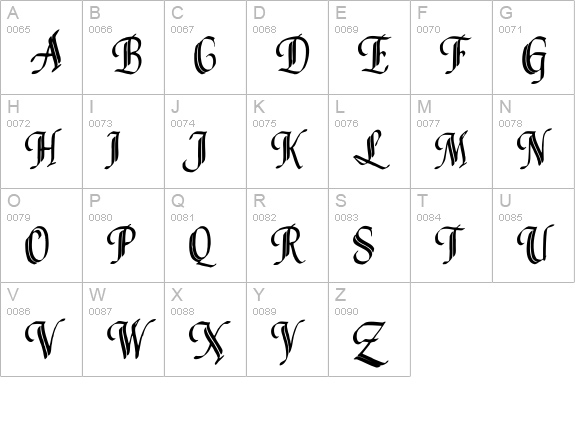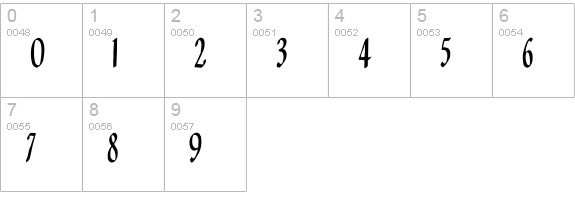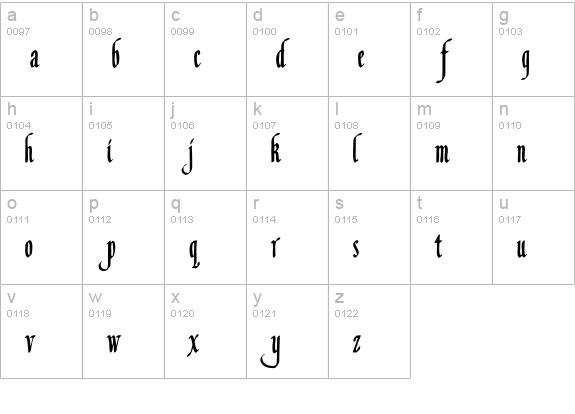
Louvaine Font Details
Louvaine font is a stunning display typeface that exudes elegance and sophistication. With its unique blend of modern and classic design elements, Louvaine is perfect for adding a touch of luxury to any project. The graceful curves and intricate details of this font make it truly stand out from the crowd. Whether you're designing a wedding invitation, branding materials, or a high-end advertisement, Louvaine is sure to make a lasting impression. The best part? Louvaine font is completely free to download at FontsMarket.com. Now you can elevate your designs with this exquisite typeface without breaking the bank. Don't miss out on the opportunity to enhance your projects with the beauty and charm of Louvaine font. Download it today and start creating stunning visuals that will capture the attention of your audience.